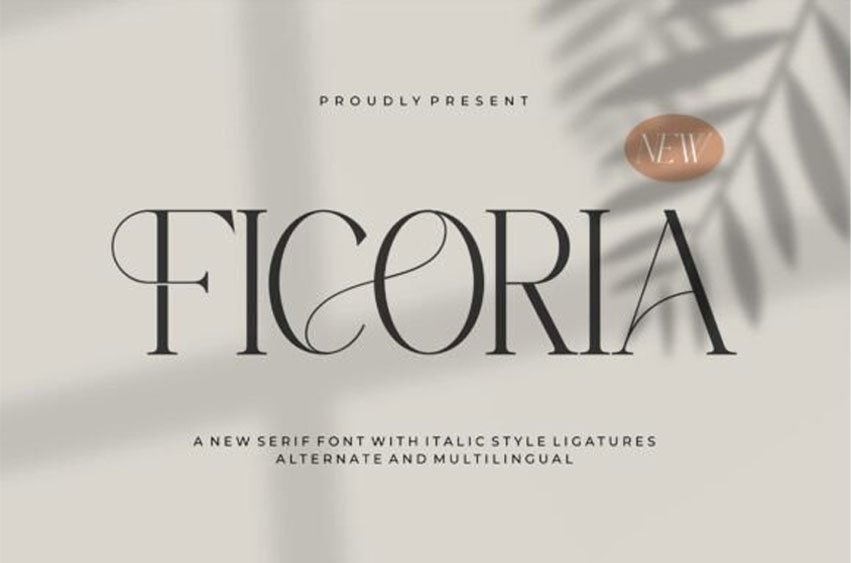
Ficoria Font is a refined serif font with a contemporary italic twist, offering beautiful ligatures and multilingual support.
Its clean lines and sophisticated curves are perfect for logos, invitations, upscale branding, and minimalist design projects.